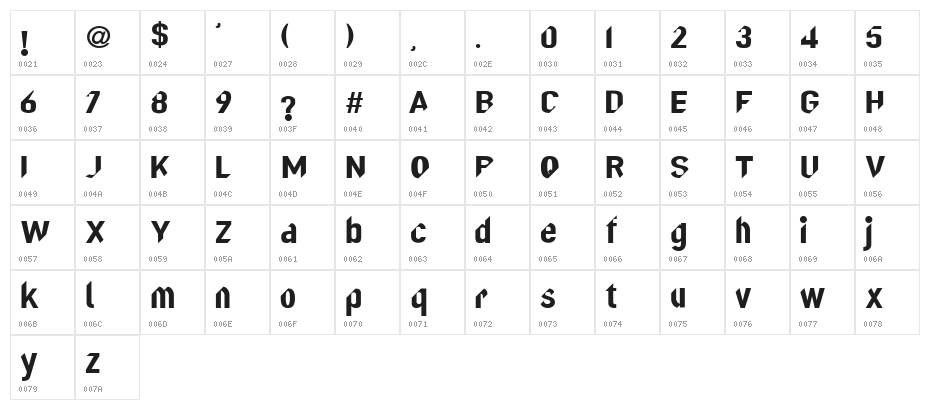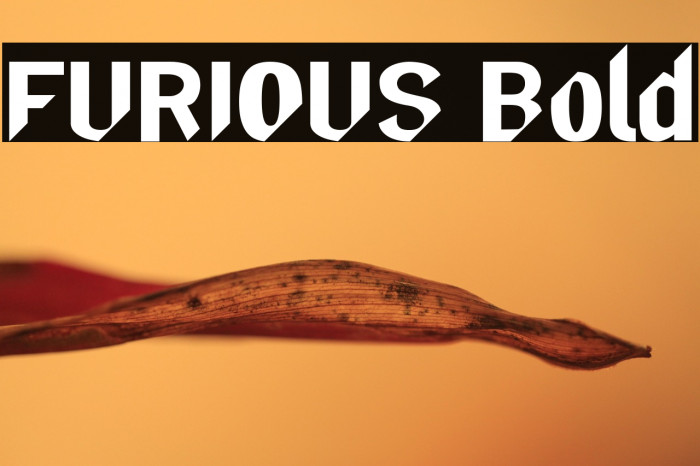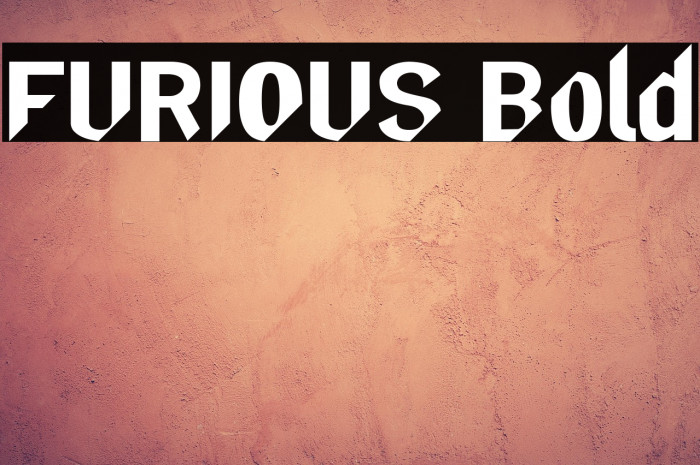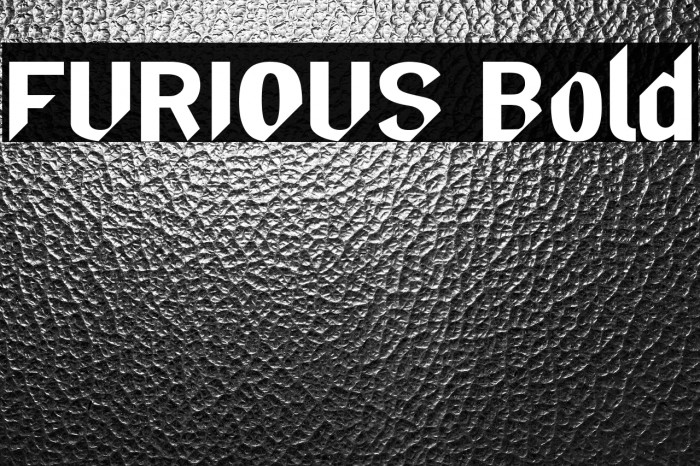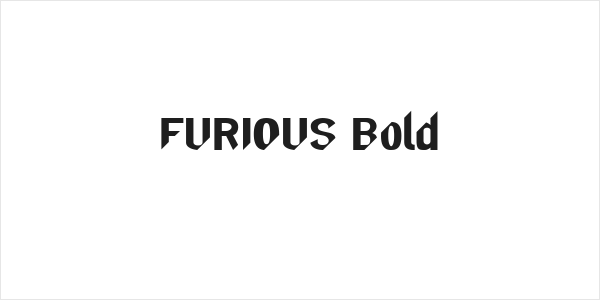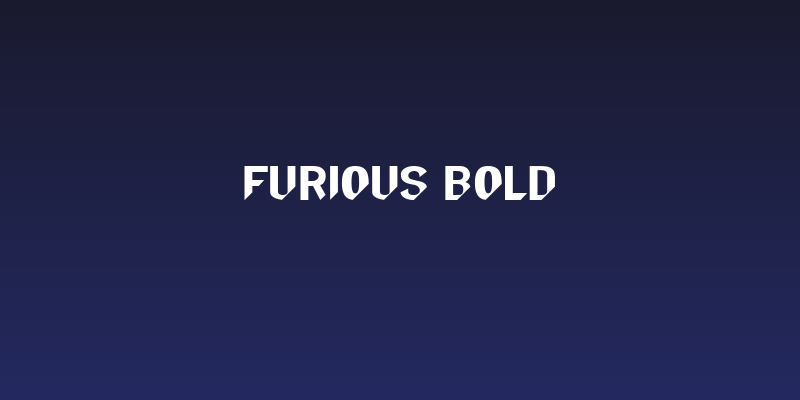
FURIOUS Bold Font
FURIOUS Bold Description
This font features bold, angular characters with a modern and aggressive style. The uppercase letters have sharp edges and a strong presence, while the lowercase letters maintain a consistent boldness with slightly rounded elements. The numerals are equally bold, ensuring readability and impact. Special characters are designed to match the overall bold and assertive aesthetic, making them suitable for attention-grabbing designs. The font's geometric structure and consistent weight make it ideal for projects that require a strong visual impact.
| Proposed Projects | Ideal for branding, posters, headlines, and any design requiring a strong visual impact. |